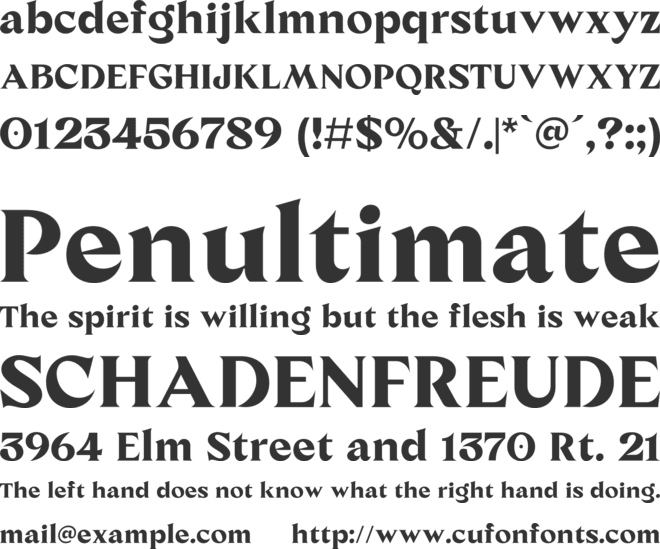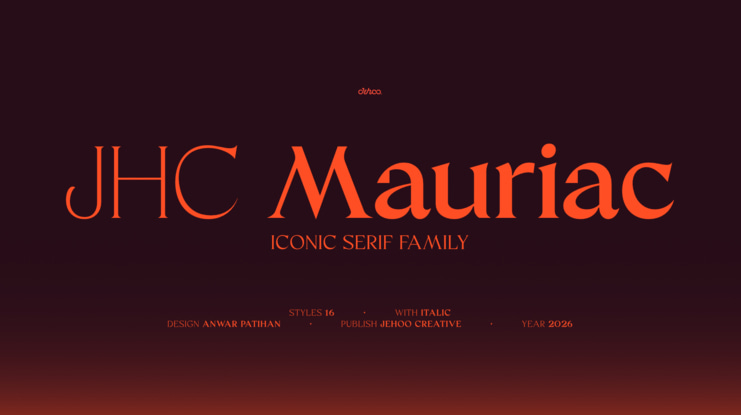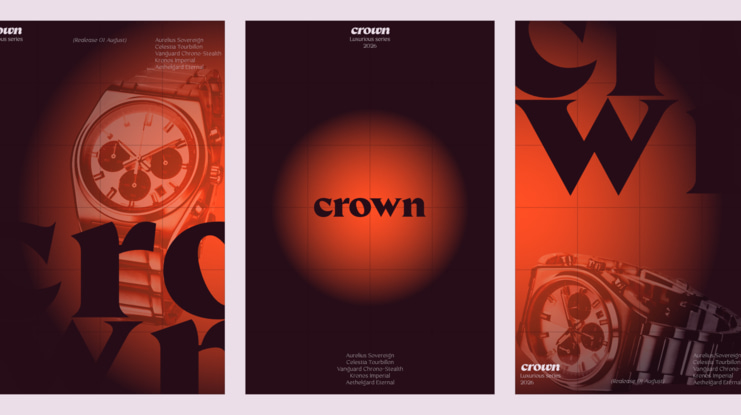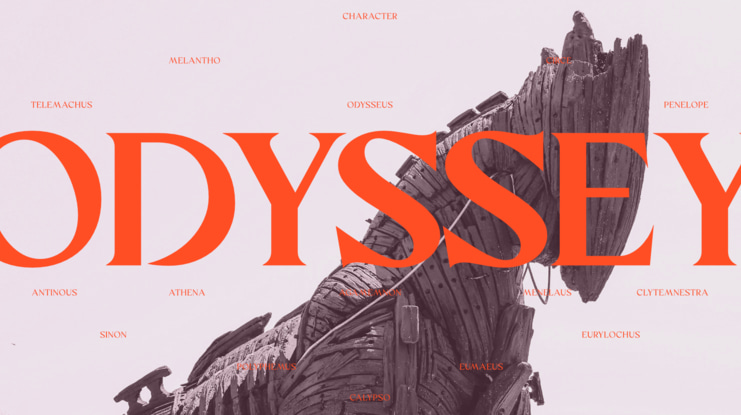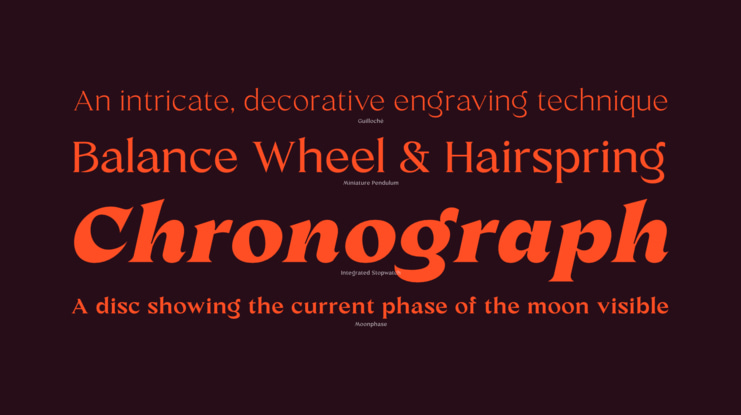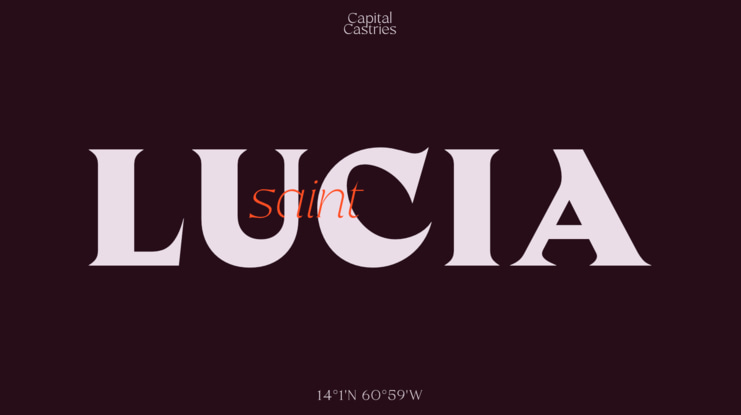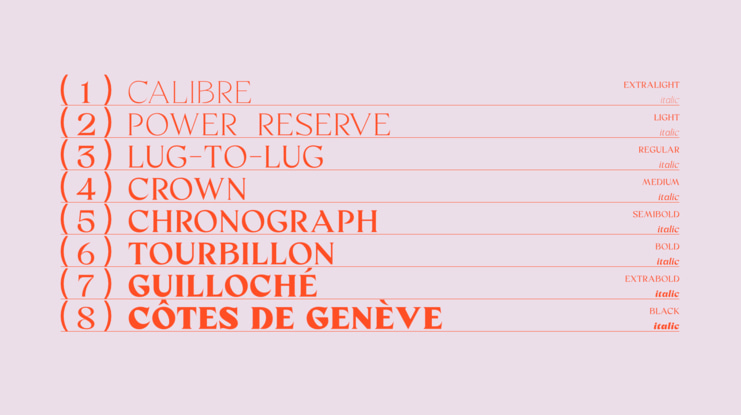
JHC Mauriac is an iconic serif defined by refined proportions and sharp-pointed terminals that give its silhouette a striking, high-fashion poise. Blending classic editorial luxury with razor-sharp precision, its forms strike a dynamic balance between traditional grace and contemporary attitude. The extreme weights reveal its full expressive power, where razor-sharp details cut through the noise to create dense, visually captivating headlines.
Driven by a pursuit of modern elegance, JHC Mauriac rejects ordinary serif conventions to embrace sharp personality and dramatic style. Its construction is deliberate and commanding—a typeface crafted not just to accompany a composition, but to anchor its visual identity.
Spanning 16 styles across 8 weights from ExtraLight to Black—each paired with a matching True Italic and equipped with stylistic alternates for a, b, d, p, and q—JHC Mauriac is engineered for luxury branding, editorial spreads, and statement identities that demand attention.
Elegance with an edge.